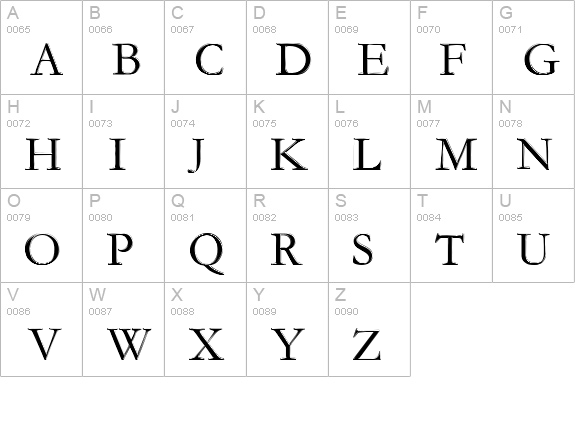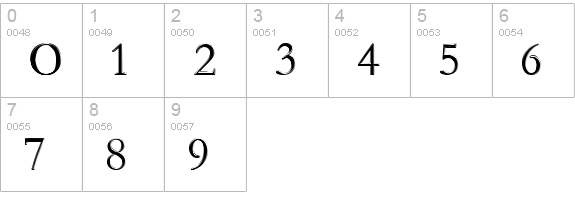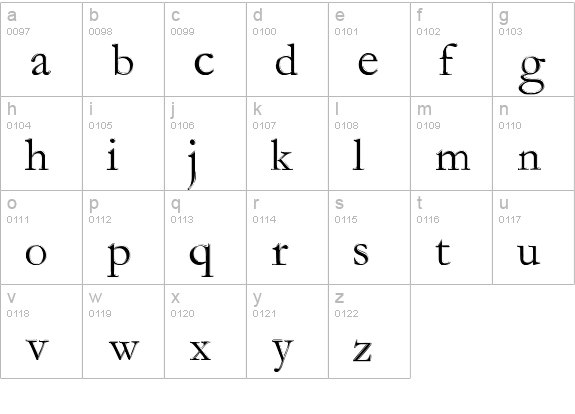
Mana Mana Font Details
Mana Mana font is a captivating and visually striking typeface that is sure to add a touch of elegance and sophistication to any creative project. With its unique and intricate design, this font is perfect for adding a sense of flair and personality to your designs. Mana Mana font is a versatile typeface that can be used for a wide range of design purposes, including logos, branding, packaging, headlines, and more. Its clean lines and balanced proportions make it easy to read, while still maintaining a distinct and eye-catching look. One of the best things about Mana Mana font is that it is free! That's right, you can download this amazing font at no cost from FontsMarket.com. This means that you can use it in both personal and commercial projects without having to worry about any licensing restrictions. Whether you're a professional designer or just someone looking to add a little extra style to your personal projects, Mana Mana font is a must-have. Its unique and captivating design, combined with its availability for free download, makes it a font that you simply can't pass up. So why wait? Head over to FontsMarket.com and start using Mana Mana font to bring your designs to life today!